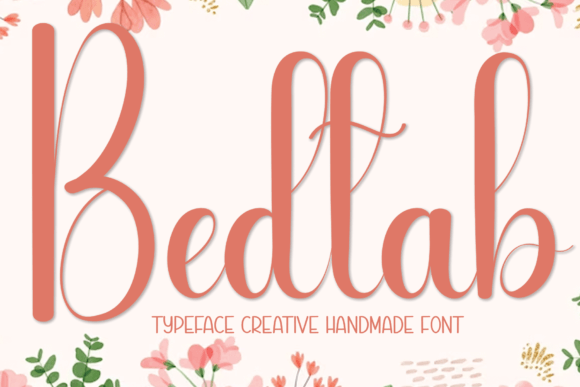
Looking for the perfect font to add a touch of charm and warmth to your designs? Look no further than Bedtab Font! Created by the talented William Jhordy, this script font is not just your ordinary typeface - it's a true gem that will bring joy and creativity to your projects.
Bedtab Font is the epitome of sweetness and friendliness. Its handwritten style exudes a sense of warmth and approachability, making it perfect for various occasions. Whether you're designing wedding invitations, greeting cards, or even crafting personalized Christmas messages, this font will make your text come alive with its delightful personality.
Imagine the beauty of handwritten notes, capturing the essence of heartfelt emotions. Bedtab Font captures that essence flawlessly, allowing you to create designs that evoke nostalgia and sentimental feelings. Its fresh and neat appearance ensures that your text stands out, while still maintaining an air of elegance and sophistication.
One of the key reasons why Bedtab Font is perfect for your Christmas card designs is its ability to infuse a fun and playful touch. The holiday season is all about spreading joy and cheer, and this font encapsulates that spirit perfectly. Your recipients will be immediately drawn to the whimsical nature of your messages, making your cards truly memorable and captivating.
But it doesn't stop there - Bedtab Font is incredibly versatile and can be used beyond just Christmas cards. Its unique and captivating style allows it to shine in a variety of designs, from branding projects to social media graphics. Add a touch of personality to your blog headers, create eye-catching posters, or even give your website a creative edge - the possibilities are endless!
Don't settle for ordinary fonts that blend into the background. Bedtab Font is here to elevate your designs, making them truly remarkable and unforgettable. Let the magic of this font unfold as you create stunning visuals that leave a lasting impression on your audience.